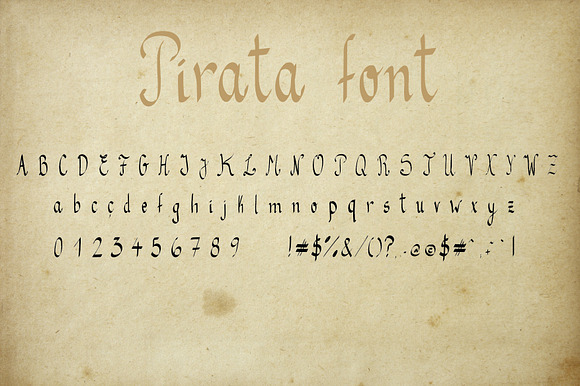
Pirata Font
Font Pirata perfect for your old looking items in kids design
Pirata Font by inesduartedesign fits naturally into Branding, posters, packaging, typography.